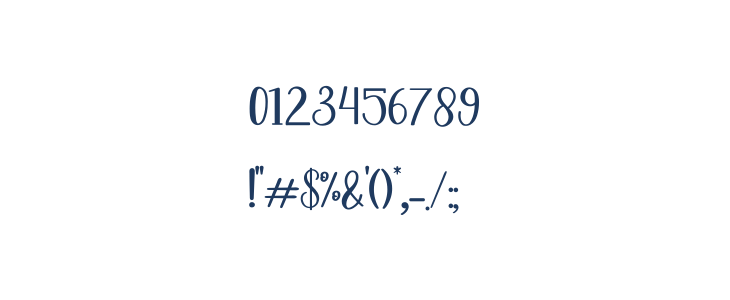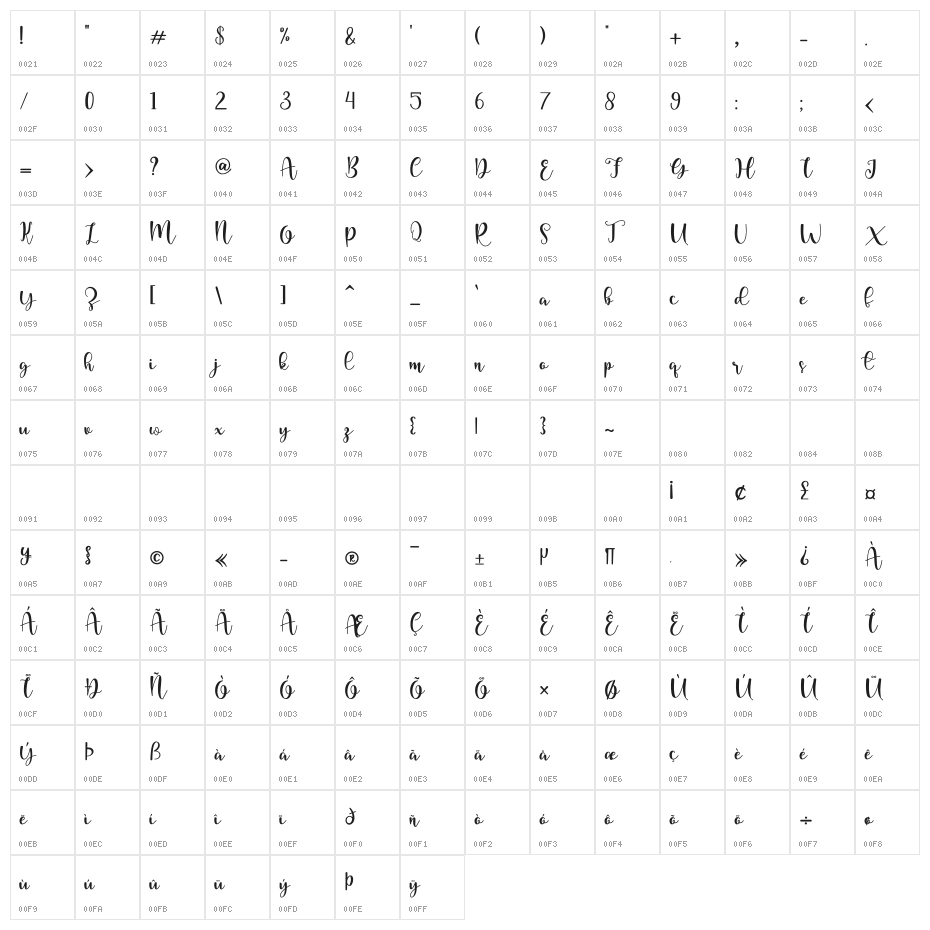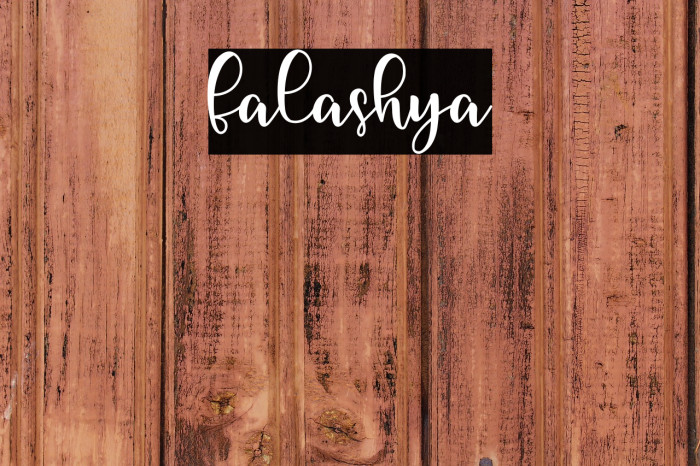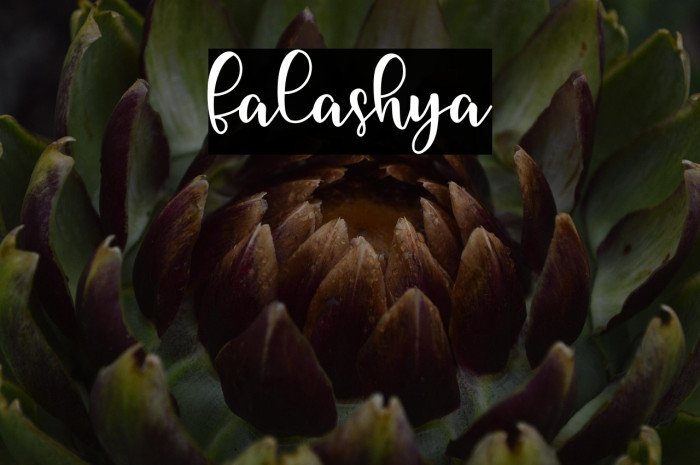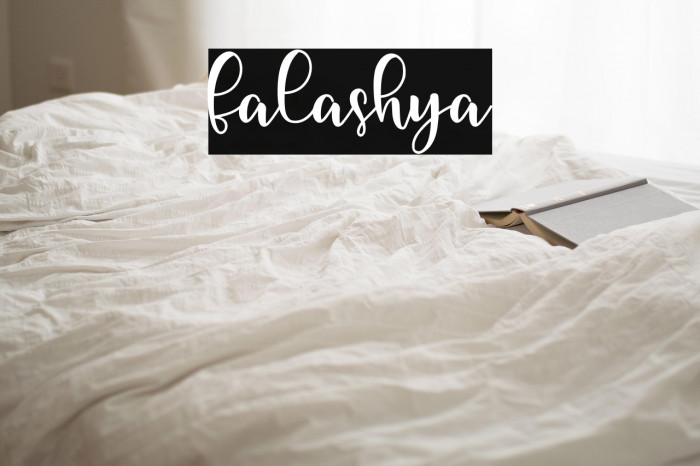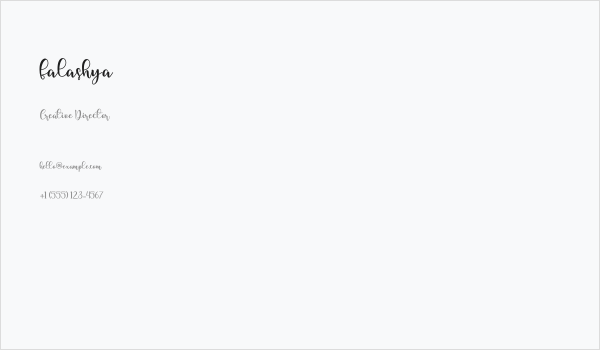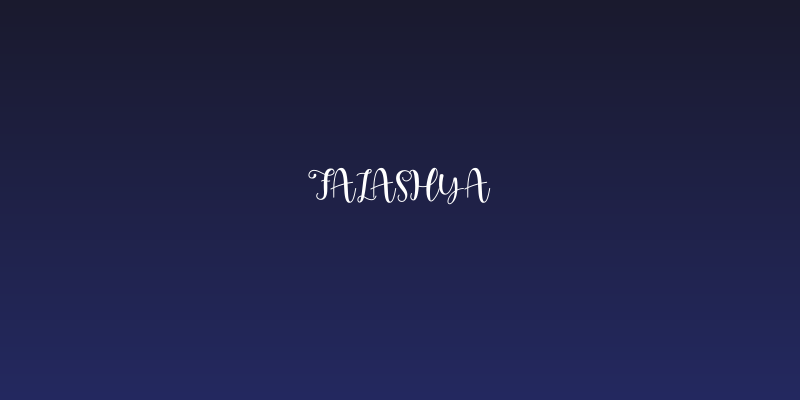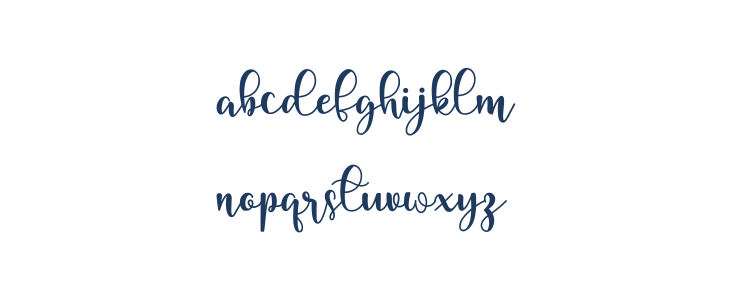
falashya Font
falashya Description
This font features an elegant and flowing script style, characterized by its smooth, cursive lines and artistic flair. The uppercase letters are bold and expressive, with dramatic loops and swirls that give a sense of movement and grace. The lowercase letters maintain a consistent flow, complementing the uppercase with their rounded forms and subtle connections. Numbers and special characters are designed to match the overall aesthetic, ensuring a cohesive look across all text. This font is ideal for projects that require a touch of sophistication and creativity, such as invitations, branding, and decorative headings.